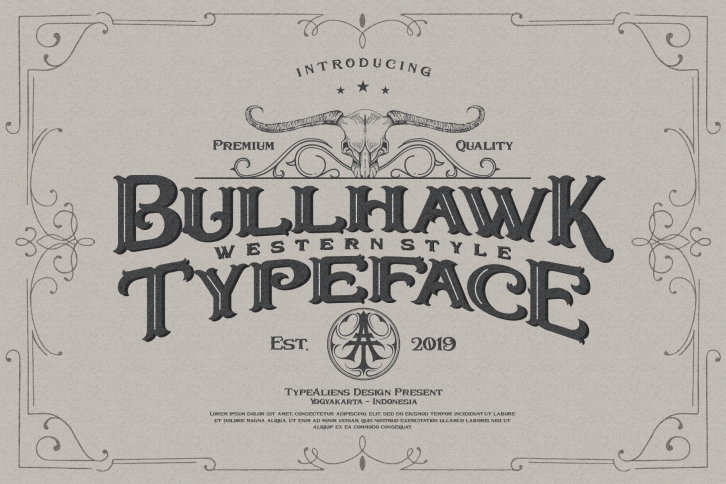
Bullhawk Layered Extra is a great font that was designed by llhamtaro. Imagine the amount of combinations you can create using this font! The archive is 11.13 MB and it was released on June 16, 2019. Bullhawk Layered Extra looks beautiful on wedding invitations, greeting cards, logos, posters, labels, t-shirt designs, logos, business cards and is perfect for use in ink or watercolor works, fashion, magazines, packaging and food menus, children's books and more!